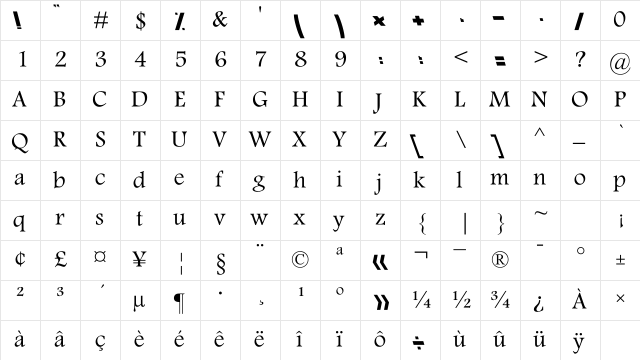
Design Context for K Nasim Typeface
K Nasim takes a measured approach to typography — its balanced proportions and neutral character make it a reliable workhorse for both digital and print work.